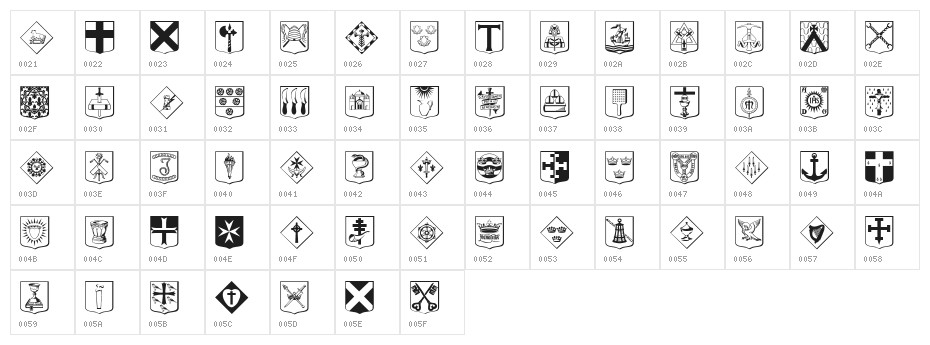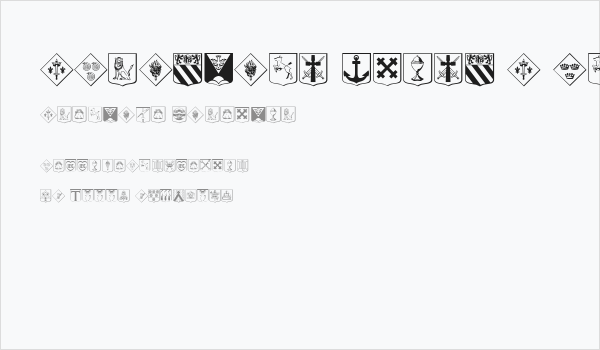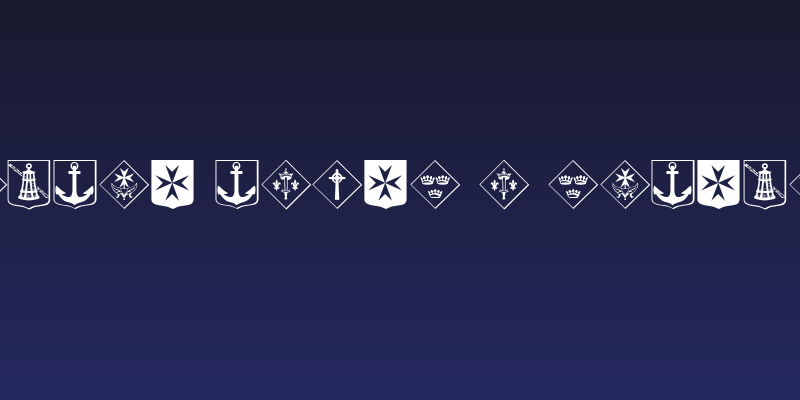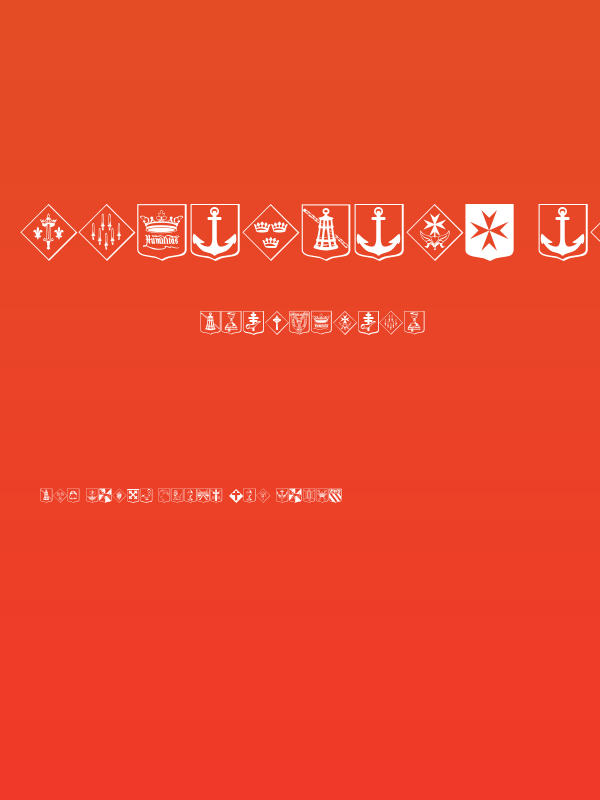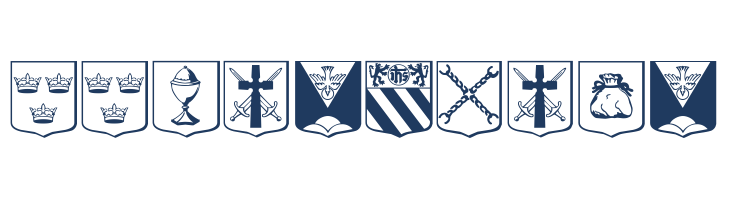
Christian Icons C SaintsAtoJ Font
A collection of black-and-white heraldic shield icons, each featuring distinct Christian symbols, saints' attributes, and religious iconography. The icons are outlined with clean, consistent lines and contain detailed illustrations within shield or diamond shapes.
| Overall Style | Decorative, Heraldic, Religious |
| Use Case | Icons, Illustrations, Thematic graphics |
| Proposed Projects | Religious publications, church bulletins, educational materials, iconography guides, themed posters. |